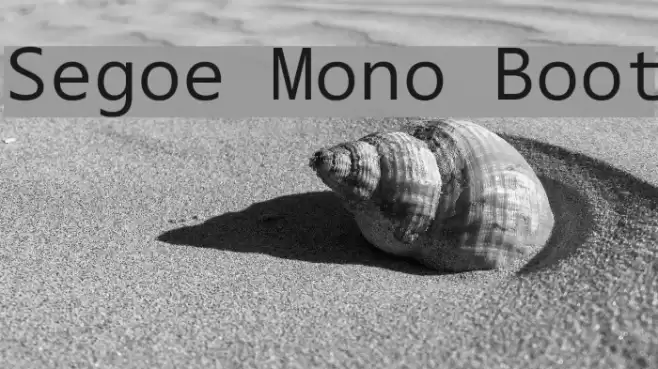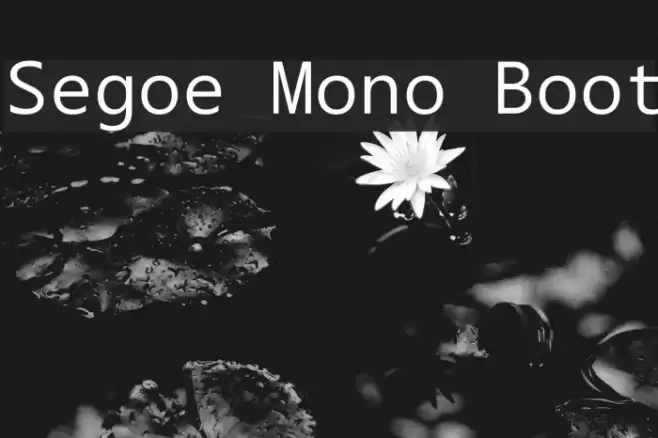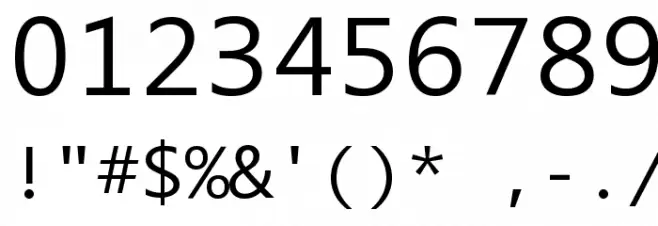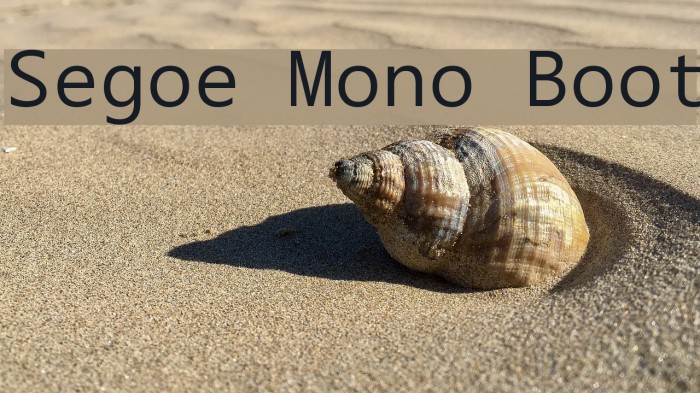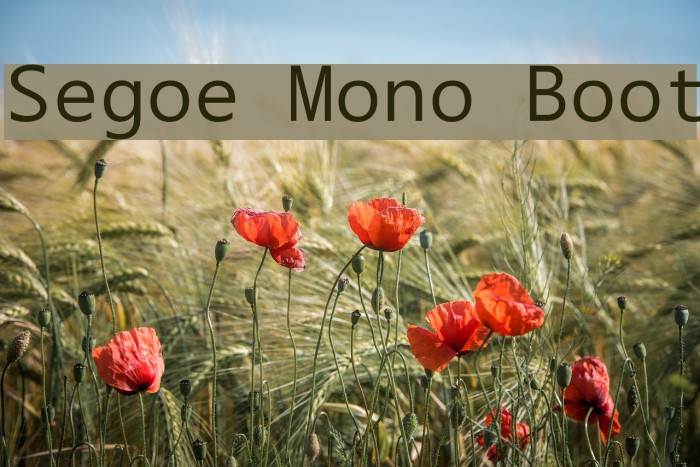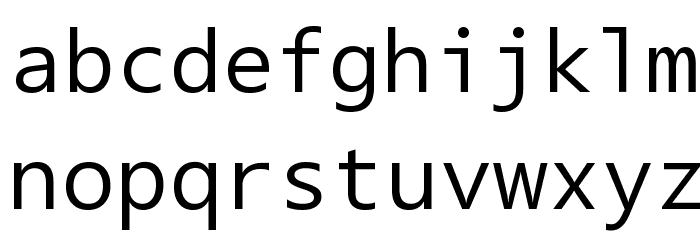
Segoe Mono Boot Font
Segoe Mono Boot Description
This monospaced font features a clean and modern design, characterized by uniform character width that enhances readability and alignment in coding environments. The characters are evenly spaced, providing a balanced and organized appearance. The font's simplicity and clarity make it ideal for technical documents, programming, and data representation. Its geometric shapes and consistent stroke width contribute to a professional and straightforward aesthetic, ensuring that each character is easily distinguishable. The font supports a wide range of characters, including uppercase, lowercase, numerals, and special symbols, making it versatile for various applications.
A clean, modern monospaced font ideal for coding and technical documents from Uncategorized fonts.